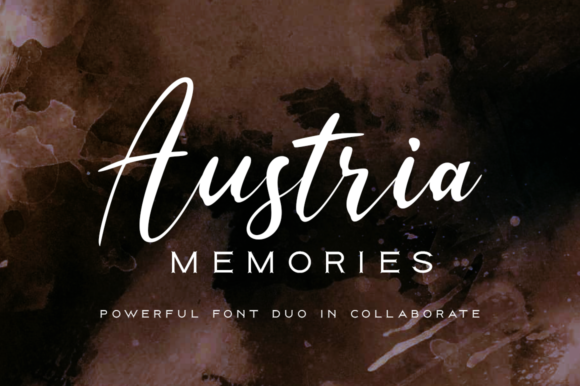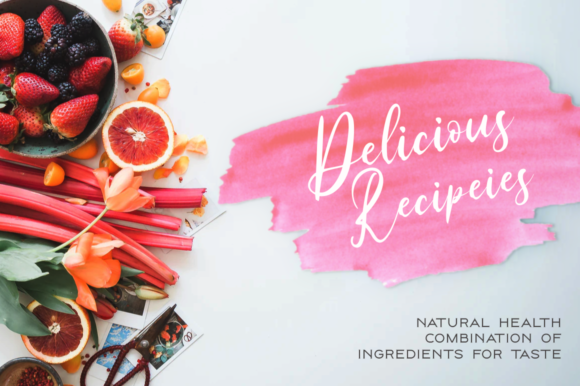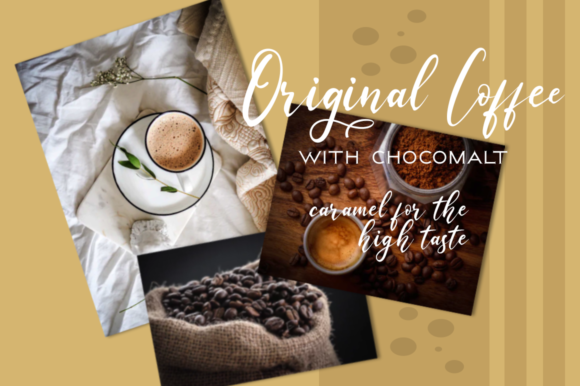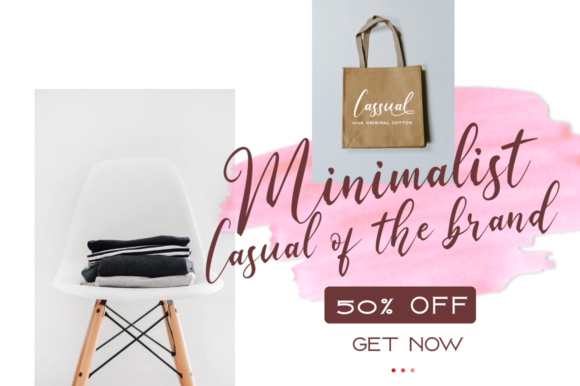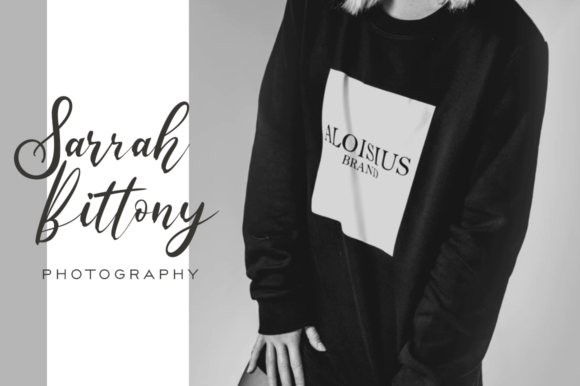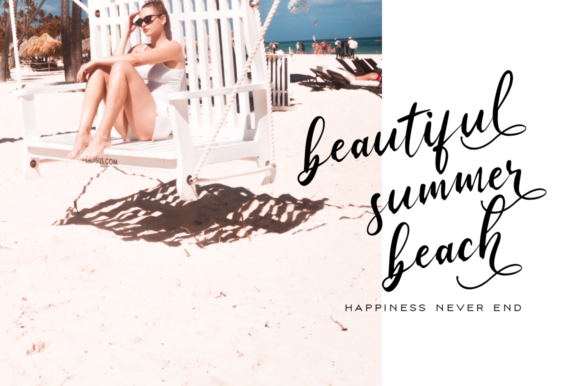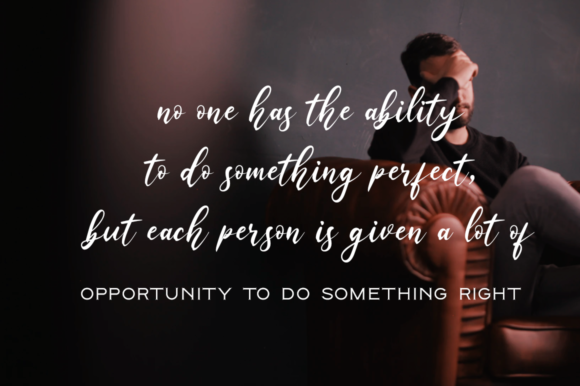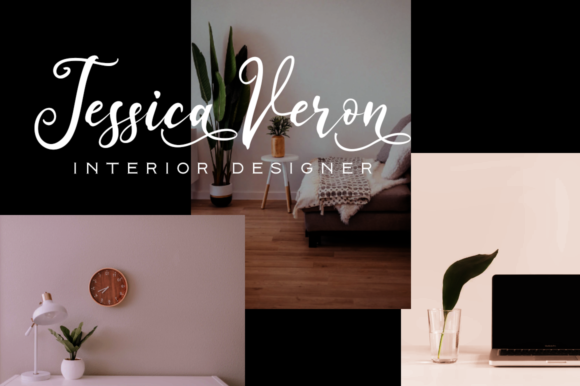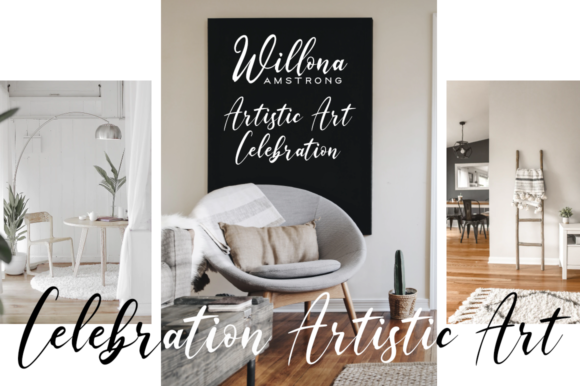
Austria Memories Font
About Austria Memories Font
Austria Memories is a gorgeous font duo. This match made in heaven contains a gorgeous script and a beautiful serif that work together perfectly! Ignite your creativity with this versatile must-have.